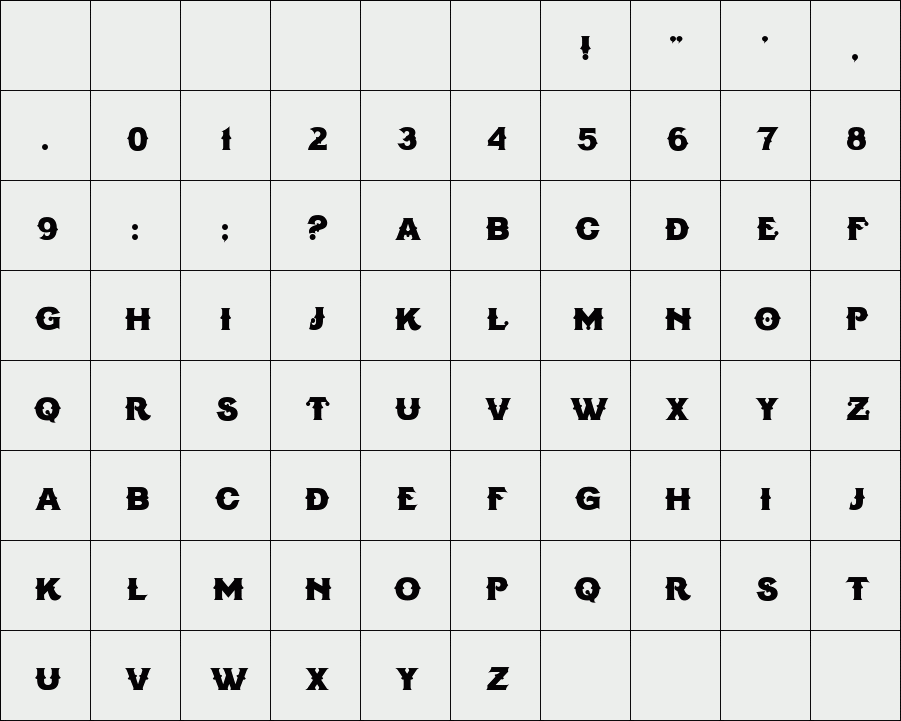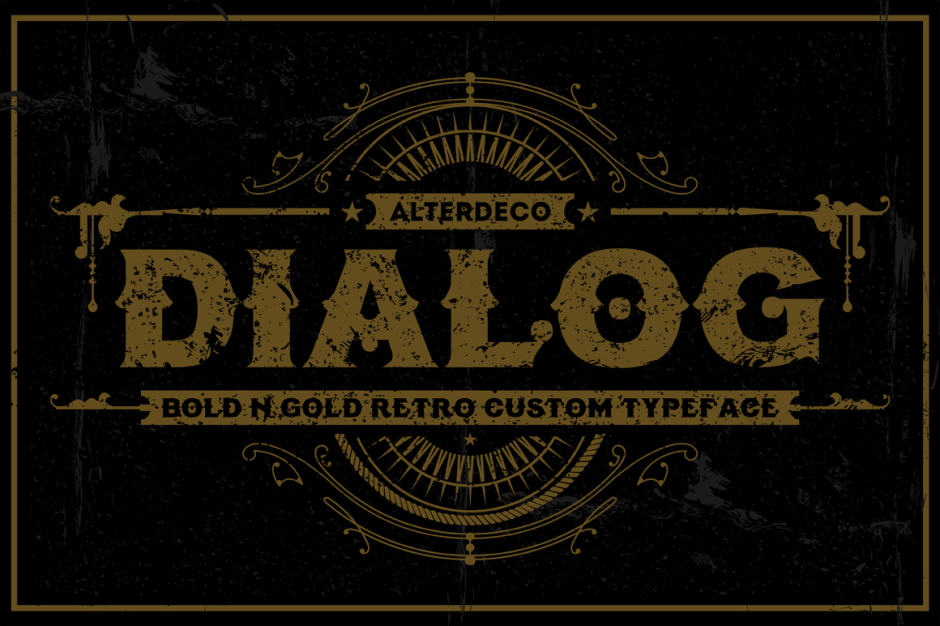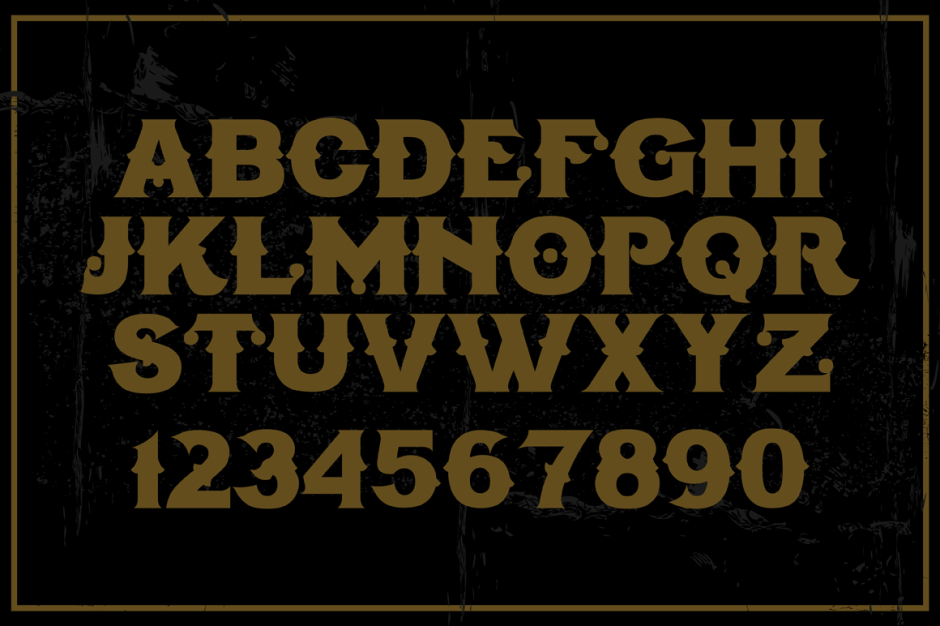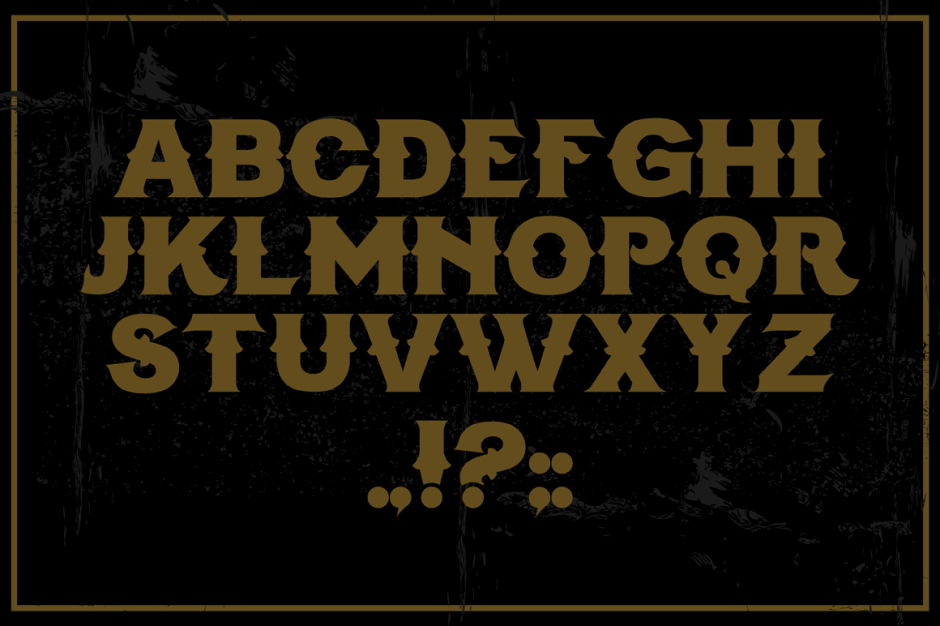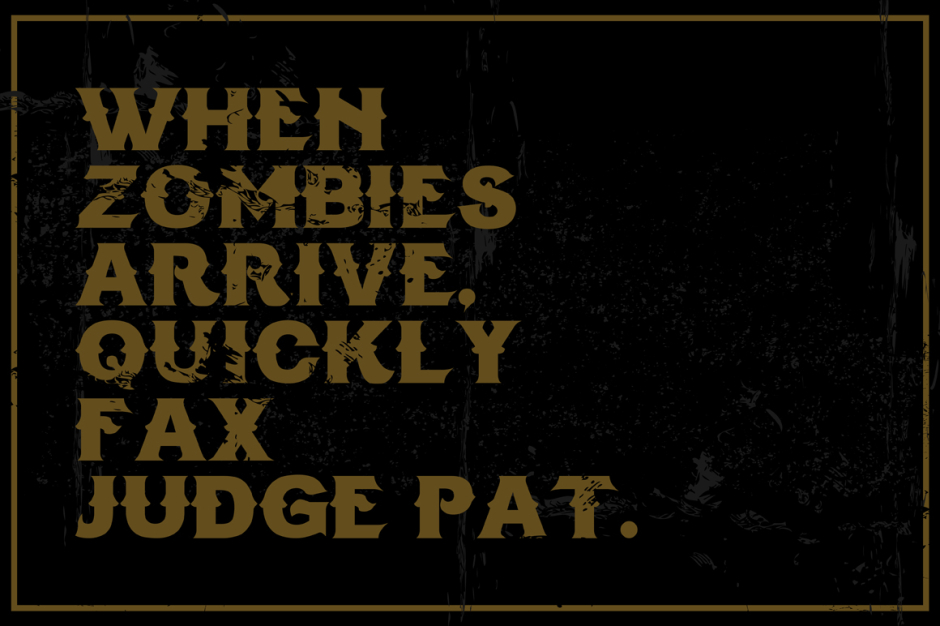
Dialog Type
/ Dialog Typeface
DIALOG, is a bold vintage custom type, inspired by old school and dirty vintage typefaces from old classy rock posters.I'm sure that this will very useful to create a rock band logo, apparel, and fit to create this as a headline or something. it's available in ttf and otf version.